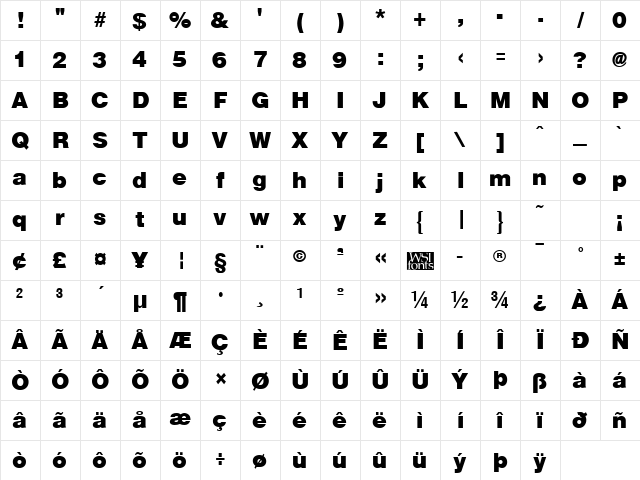
ArenaBlack Regular
ArenaBlack Family
ArenaBlack Regular
Design Context for ArenaBlack
ArenaBlack is a composed and adaptable typeface that performs quietly and consistently across a wide range of design contexts.